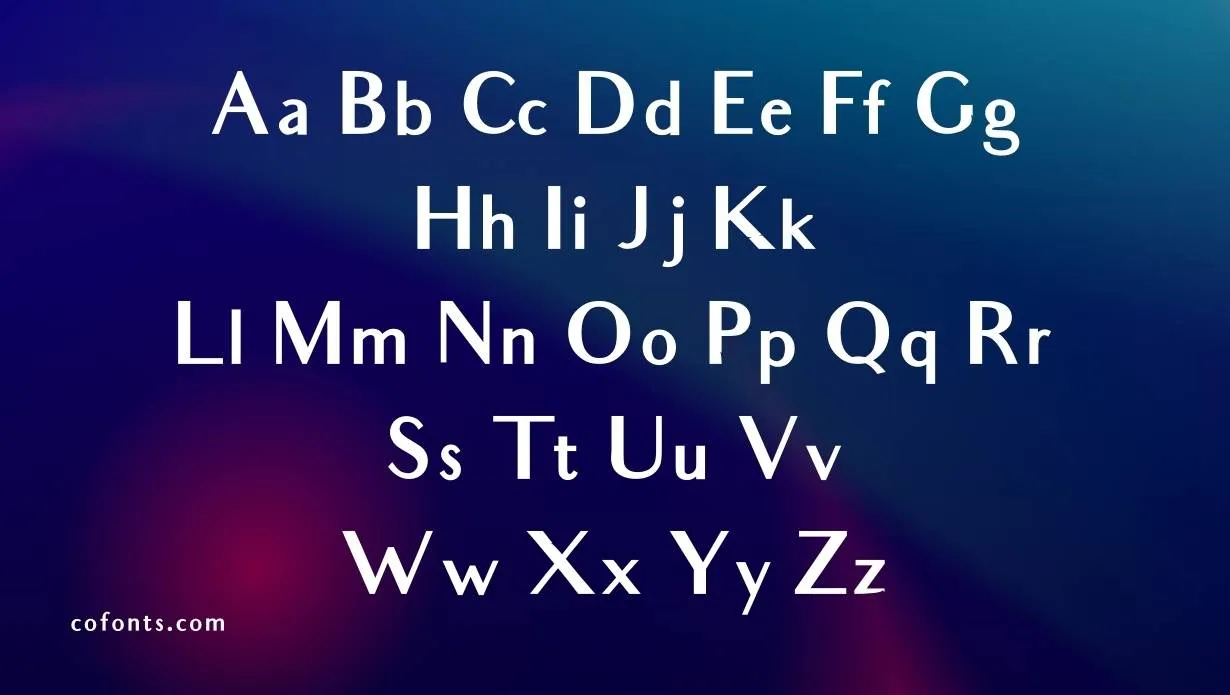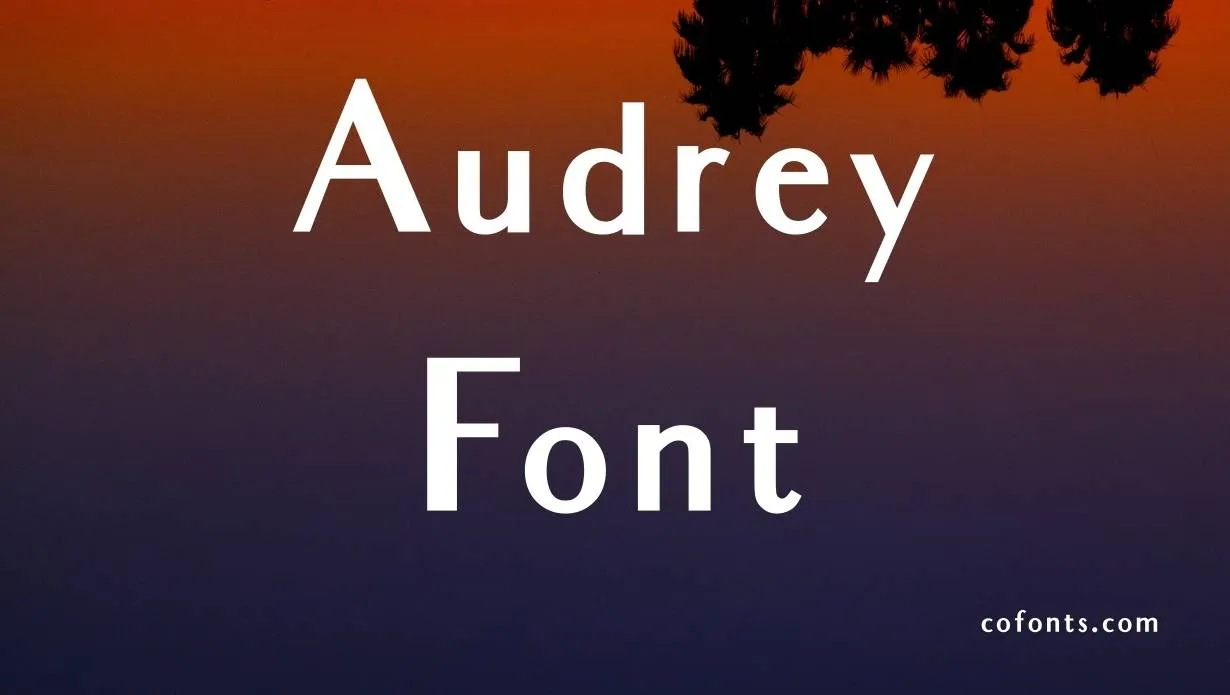
Audrey Font Free Download is a modern typeface available in multiple variants and styles.
- Audrey Font Regular
- Audrey Font Bold
- Audrey Font Italic